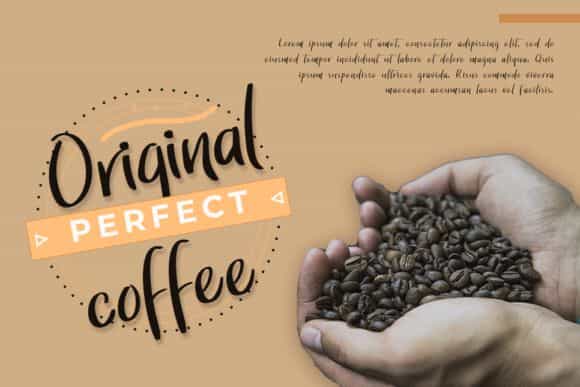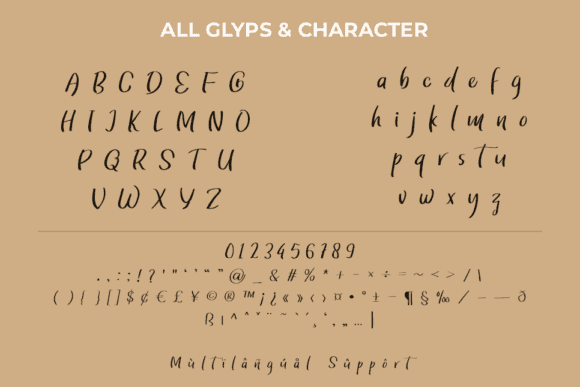
Thumbler is a handwritten font with elegance that was meticulously crafted using a brush pen. Its handwritten style opens up possibilities for creating design projects like logos, signatures, labels, packaging designs blog headlines or movie titles!